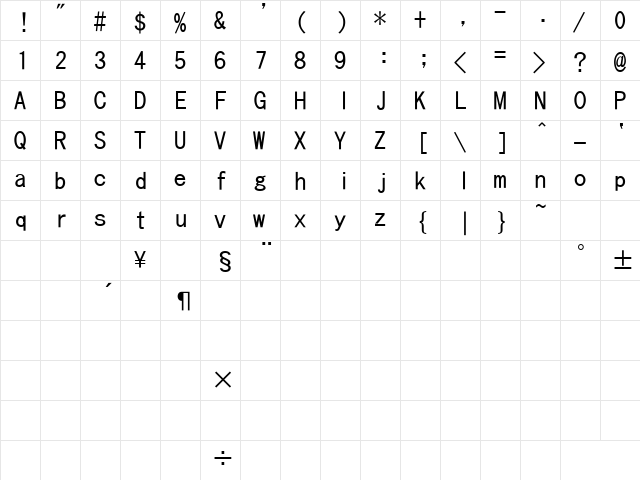
Kochi Gothic Regular
Design Context for Kochi Gothic Typeface
Kochi Gothic takes a clean, functional approach — its unadorned letterforms prioritise legibility and work reliably across screen and print environments.
Font Pairing: Works well alongside a characterful serif or display font that can carry the expressive load while Kochi Gothic handles the functional copy.
Pro Tip: Use Kochi Gothic for UI labels, navigation, and short-form body copy where clean legibility is the priority.